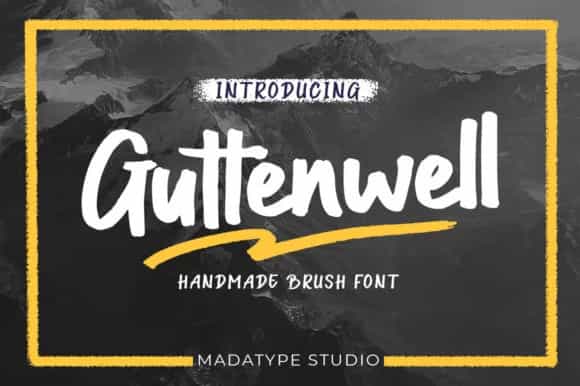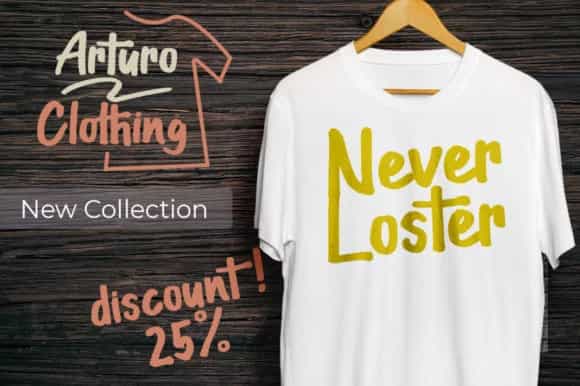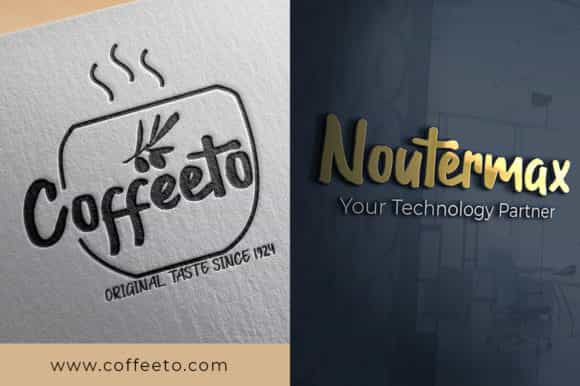
Guttenwell is a script font that is daring in its execution. It is a fun font type that possesses cute cute round, unique and fancy font characters. Created with emphasis on how it looks to bring happiness to all those who get to use it! It has been developed and posted by Madatype Studio. It is a powerful and stylish script font that will help to make your projects look more bold!